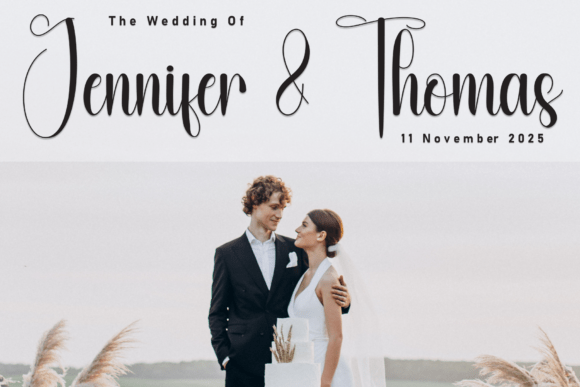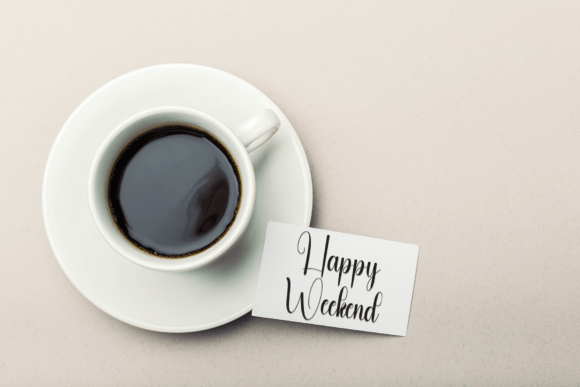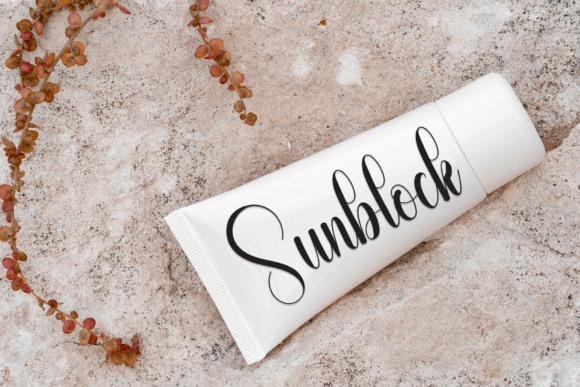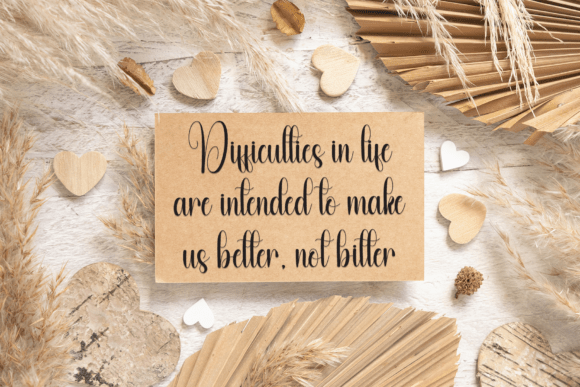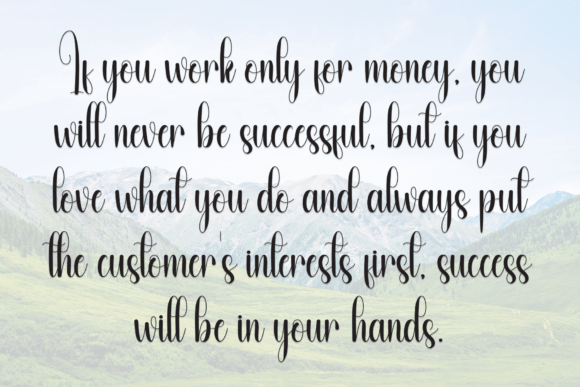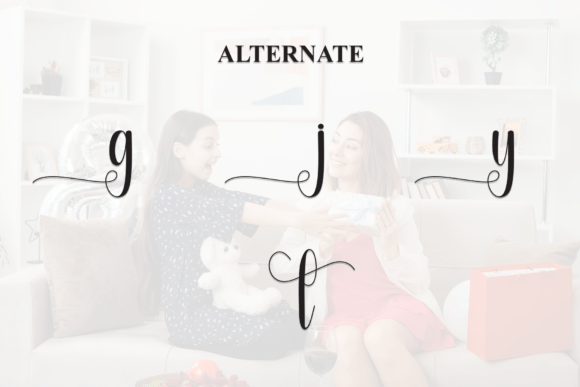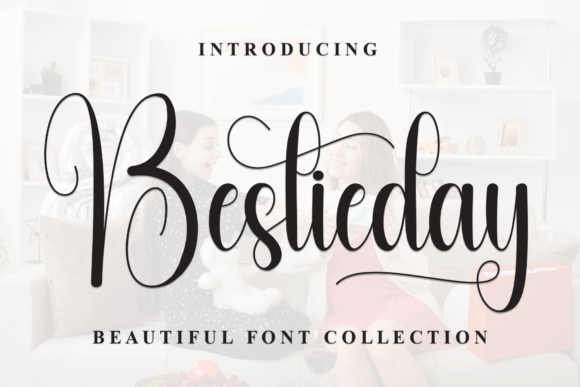
The Bestieday Font: A Timeless Handwritten Treasure for Designers
Have you ever been in the middle of a design project, and suddenly, you’re stuck on finding the perfect font? I recall a recent experience where a client asked for a custom logo that exuded warmth and personality. After scouring through countless font libraries, I stumbled upon the Bestieday font, and it instantly became the perfect fit. In this article, we’ll dive into the world of Bestieday, exploring its unique features, and how to make the most of this lovely handwritten font.
A Personal Review: What I Love About Bestieday
Here’s what makes Bestieday a standout font:
• ✨ Unique and beautiful touch: Every letter has a distinct character that adds a personal touch to your designs.
• ✅ Timeless appeal: Bestieday’s classic handwritten style ensures your designs won’t go out of fashion anytime soon.
• 💫 Perfect for branding and quotes: The font’s elegance and sophistication make it ideal for creating eye-catching logos, branding materials, and inspirational quotes.
• 🎨 Versatile: Bestieday can be used for a wide range of design projects, from digital graphics to print materials.
While Bestieday is an excellent font, there are a few minor considerations to keep in mind:
• 🤔 Limited availability of stylistic alternates: While Bestieday offers some OpenType features, it may not have the extensive range of alternates you’re looking for.
• ⚠️ May not be suitable for body text: Due to its elegant, cursive nature, Bestieday might not be the best choice for lengthy paragraphs or body text.
The Story Behind Bestieday: A Designer Inspiration
Bestieday was crafted with love and care by a talented type designer who aimed to create a timeless, handwritten font. The designer’s inspiration came from traditional calligraphy and handwriting, with a focus on creating a font that exudes warmth and personality. The result is a beautiful, elegant font that’s perfect for a wide range of design projects.
What type of projects is Bestieday suitable for? Bestieday is perfect for creating eye-catching logos, branding materials, inspirational quotes, and digital graphics.
Does Bestieday support OpenType features? Yes, Bestieday offers some OpenType features, including ligatures and stylistic alternates.